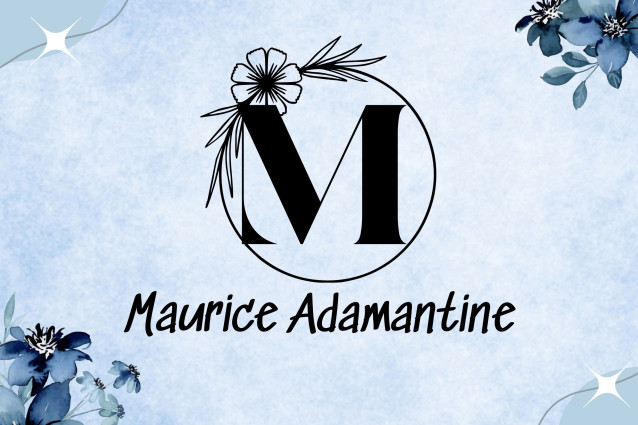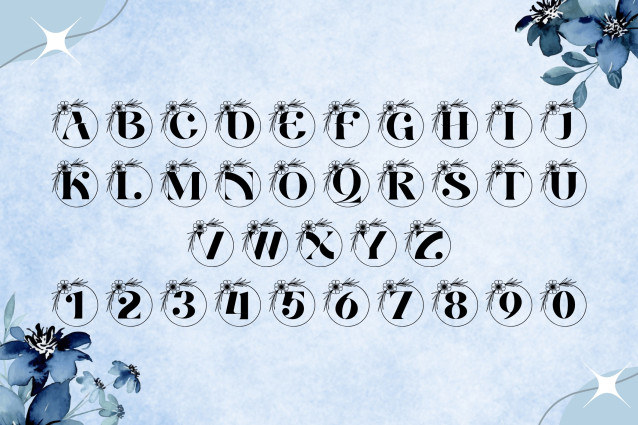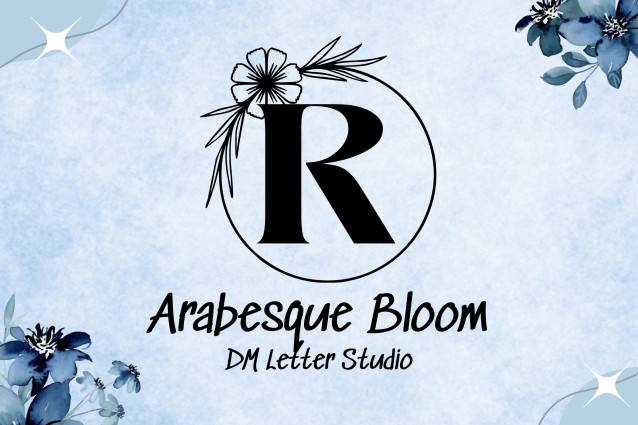
Arabesque Bloom Monogram Font
Arabesque Bloom Monogram Font is a beautifully intricate monogram font that blends classical elegance with blooming floral artistry. Each uppercase letter is adorned with delicately woven arabesque and botanical motifs, perfect for high-end monograms, wedding stationery, boutique branding, and heritage-inspired designs. This font is ideal for those who want to add a touch of romance and luxury to personalized creations.